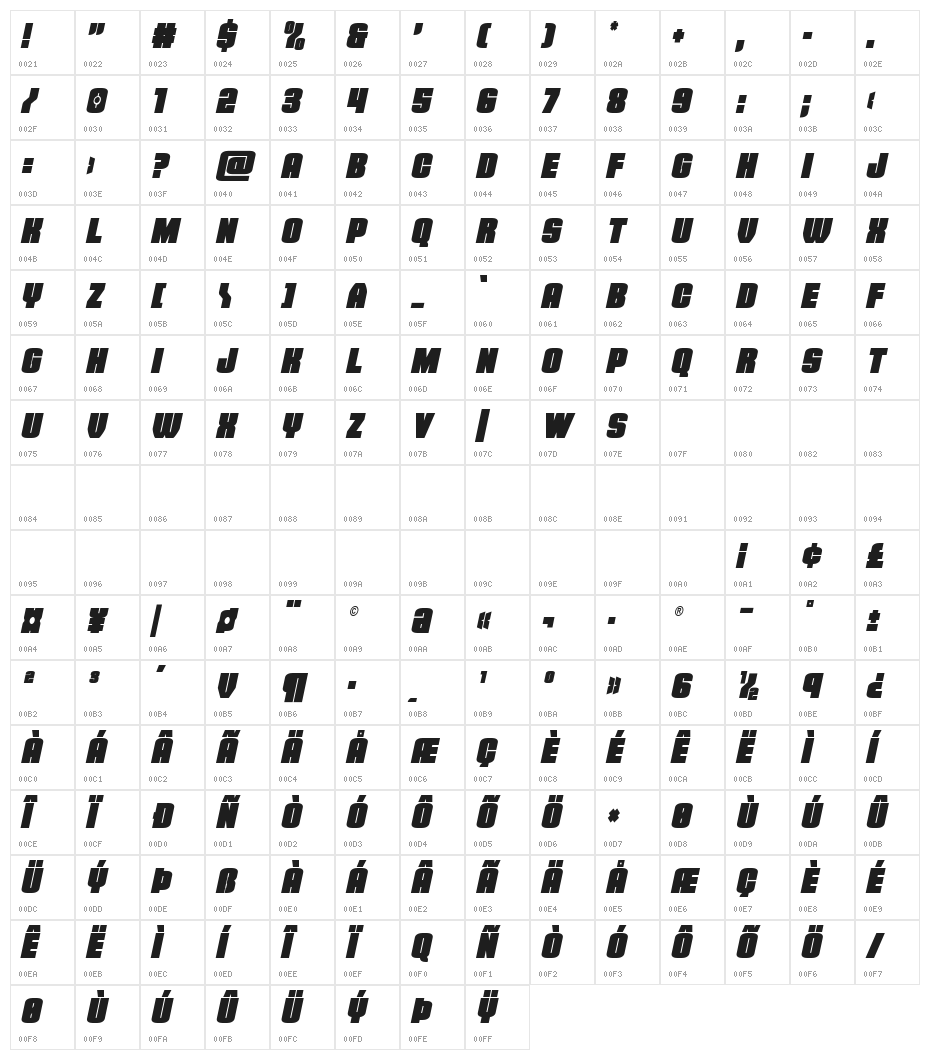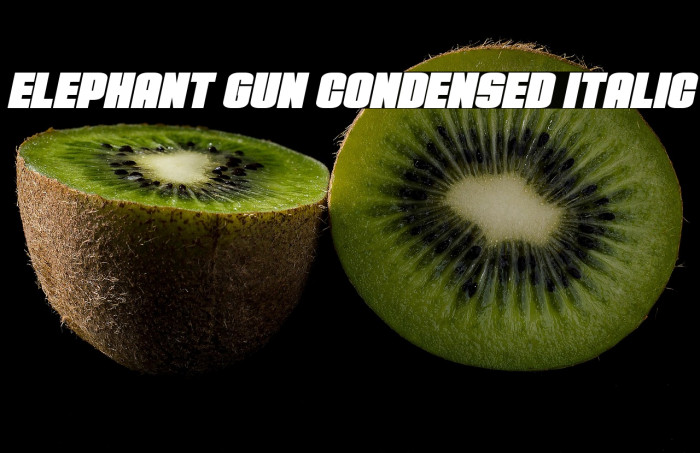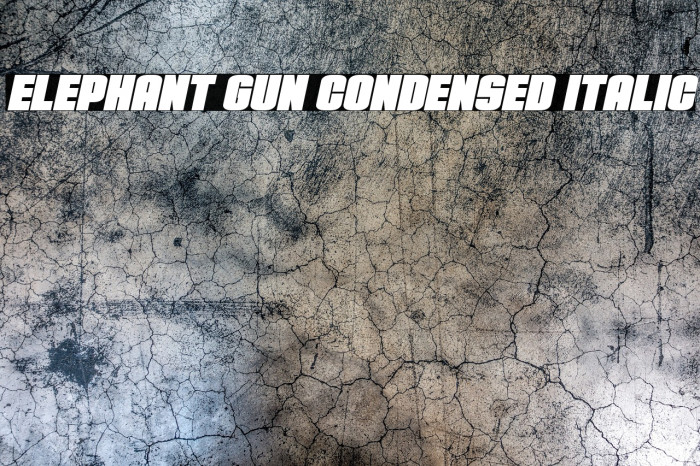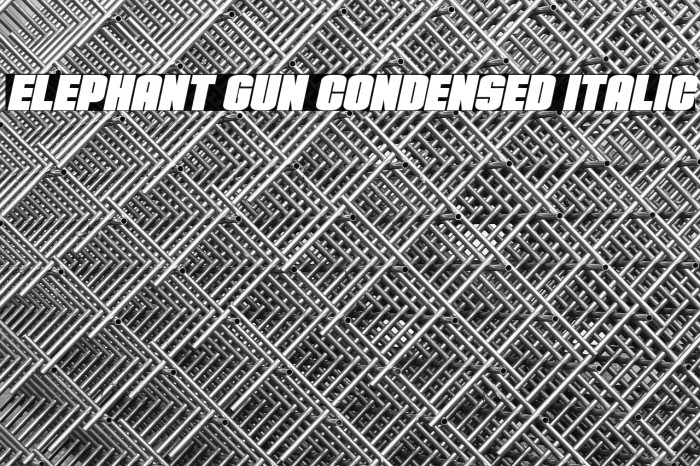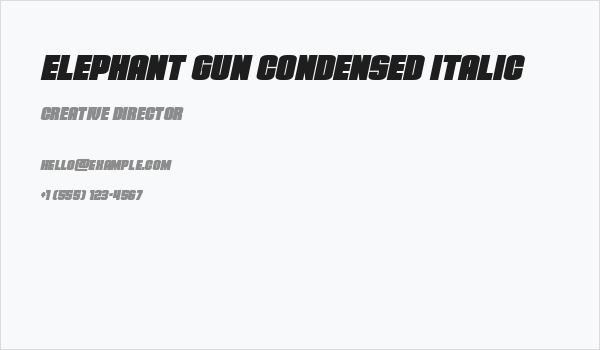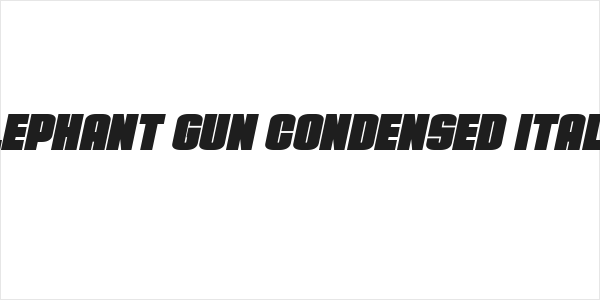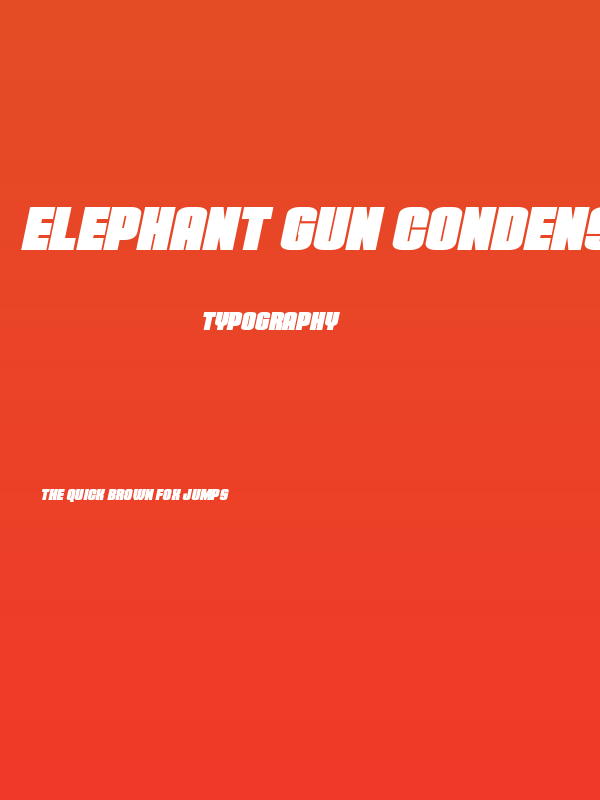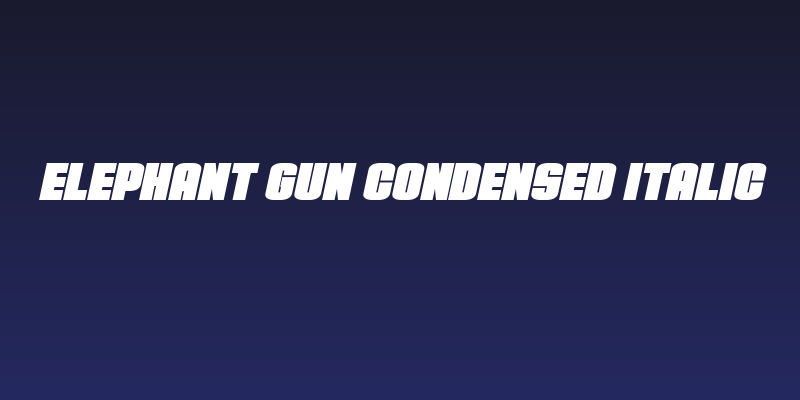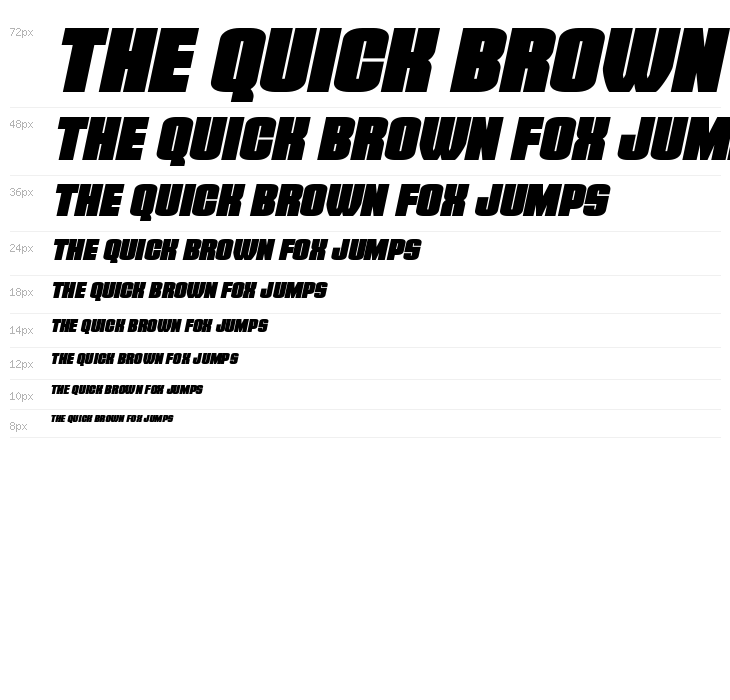
Elephant Gun Condensed Italic Font
Elephant Gun Condensed Italic Description
This font features a bold and impactful design with a condensed and italicized style. The characters are tightly spaced, creating a sense of urgency and dynamism. The strokes are thick and uniform, providing a strong visual presence. The uppercase and lowercase letters maintain a consistent height, enhancing readability while preserving the font's bold aesthetic. The numbers and special characters are designed with the same boldness, ensuring a cohesive look across all text elements. This font is ideal for projects that require a strong, attention-grabbing typeface.